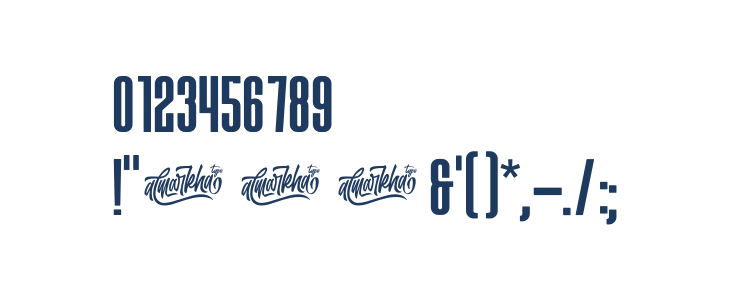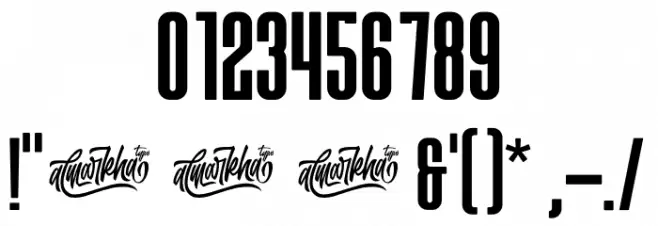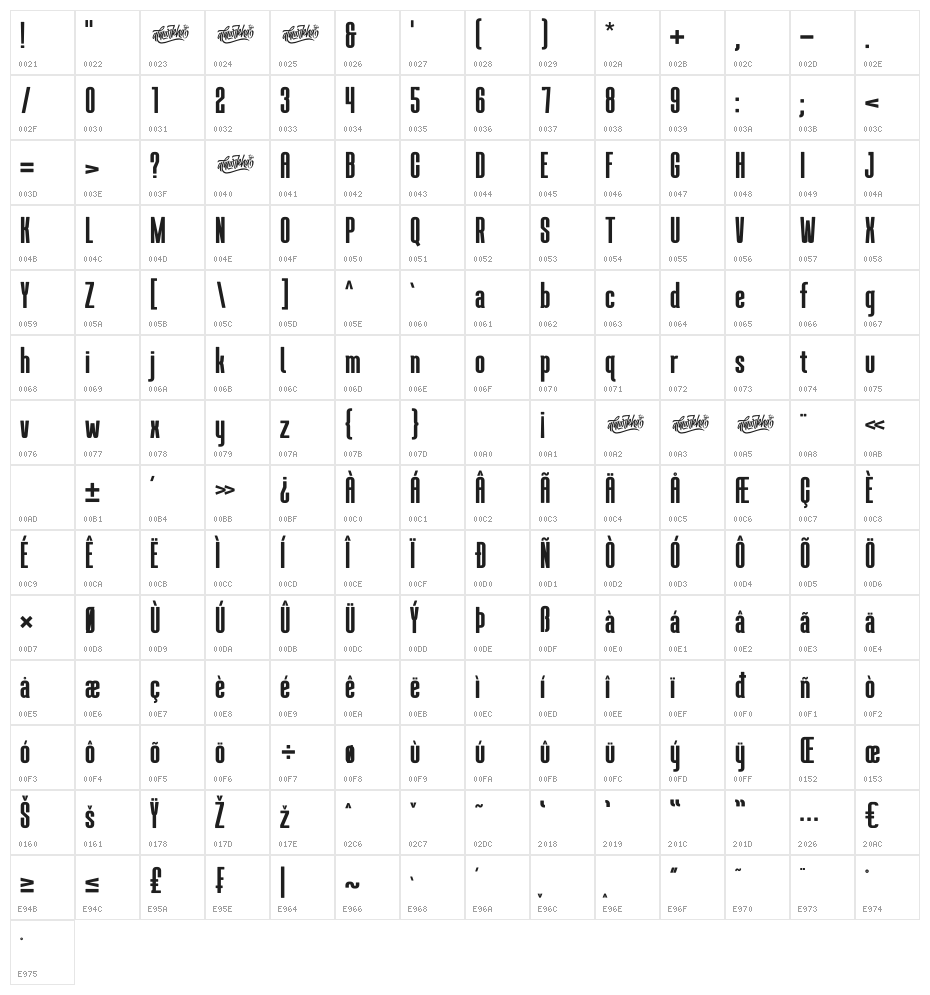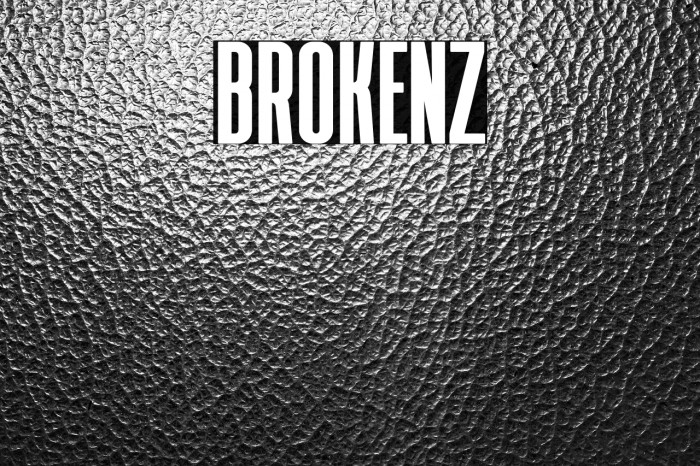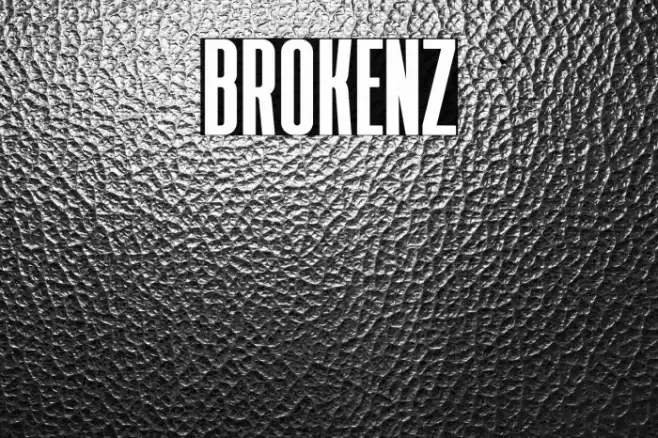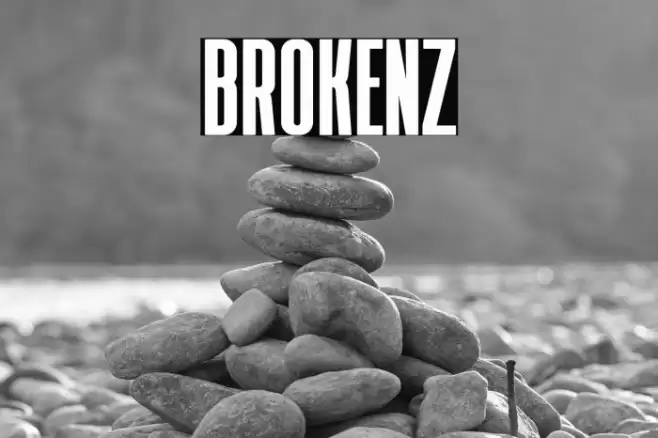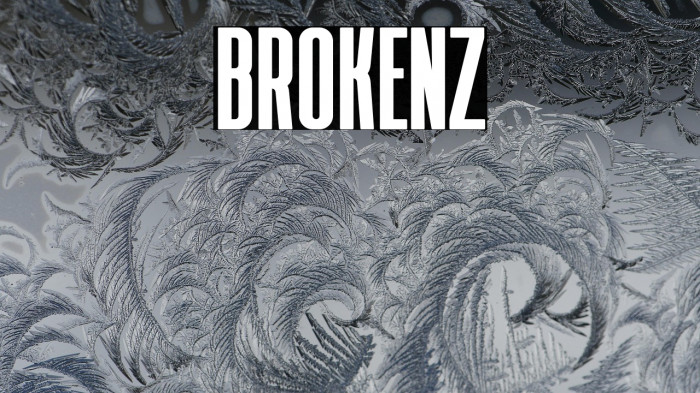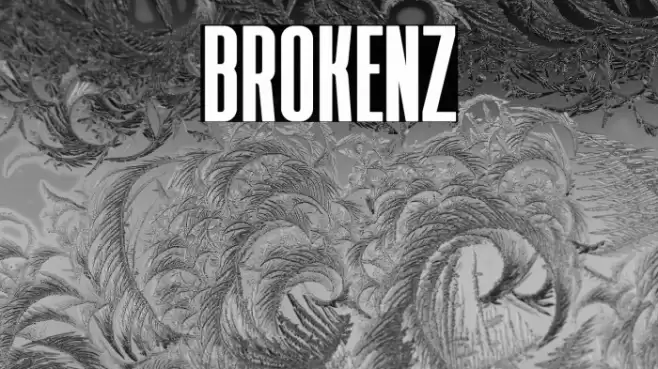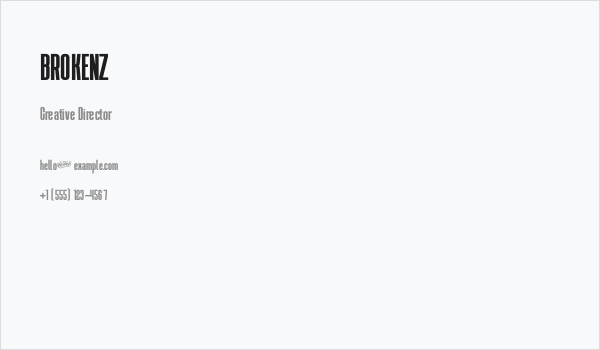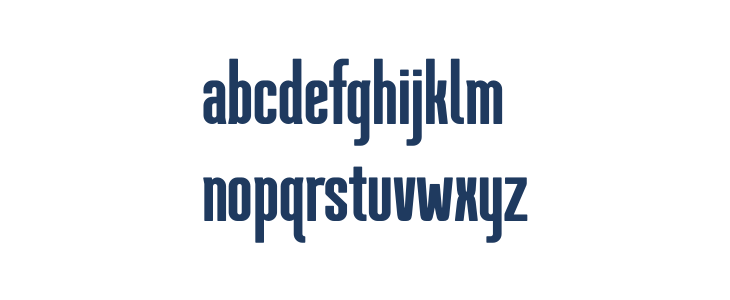
BROKENZ Font
BROKENZ Description
This font features a bold and condensed style with a modern aesthetic. The uppercase and lowercase letters are tall and narrow, creating a striking and impactful appearance. The numbers follow the same condensed style, ensuring consistency across all characters. The special characters are uniquely designed, adding a decorative touch to the overall look. This font is ideal for projects that require a strong visual presence, such as headlines, posters, and branding materials. Its boldness and condensed width make it stand out, while the modern style ensures it remains versatile for various design applications.
| Use Case | Headlines, Branding, Posters |
| Proposed Projects | Ideal for headlines, posters, branding, and any project needing a strong visual impact. |